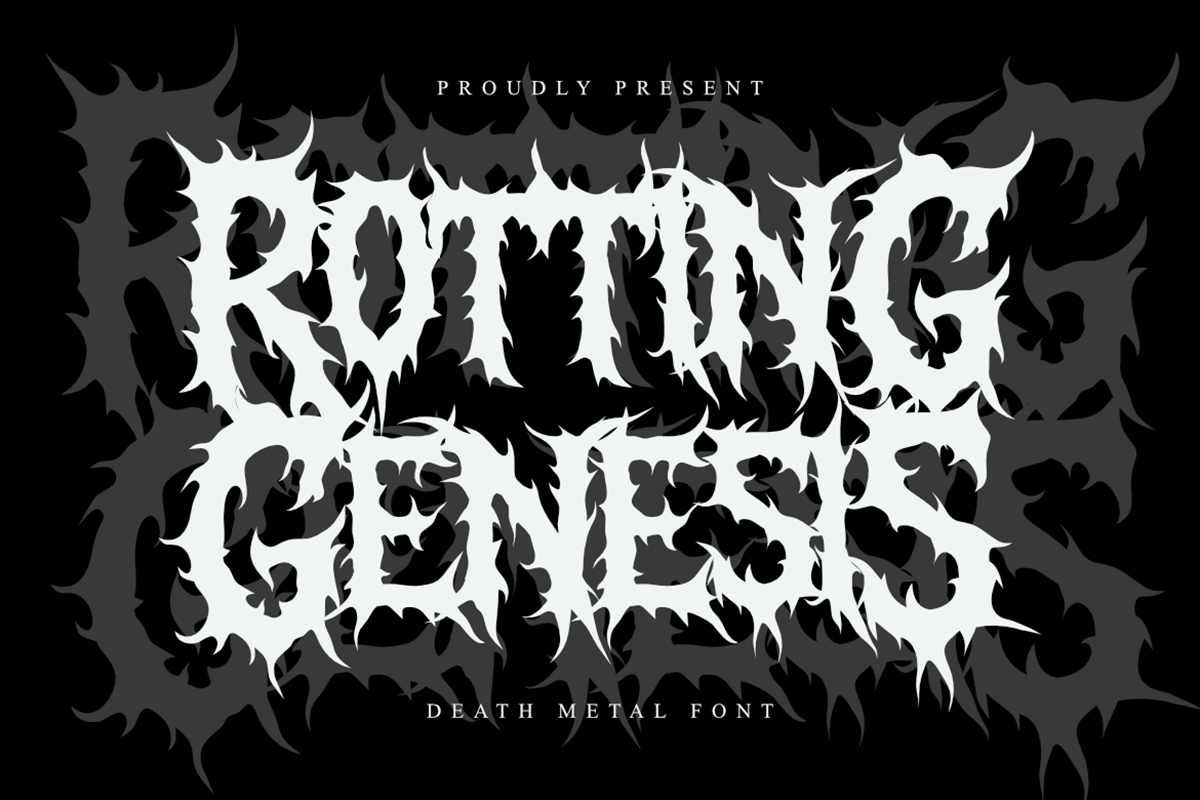
Rotting Genesis – Display Font
Rotting Genesis – Display Font is a brutal death metal font designed to bring the raw, chaotic energy of underground metal culture to your high-octane creative projects.
This typeface embodies the synergy between savage interlocking structures and aggressive, detailed “thorn” silhouettes. Its dense, interwoven letterforms provide a sense of visceral power and atmospheric darkness, maintaining a high-impact look while exuding a sophisticated sense of dark refinement.